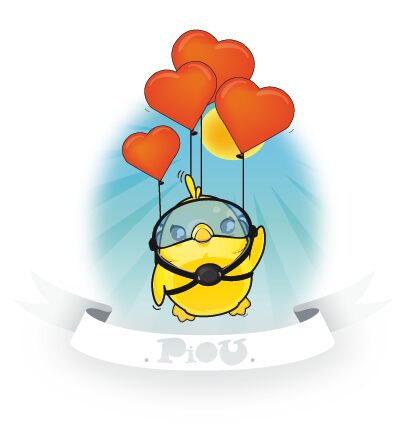
Piou Font by Thomas Boucherie of 1001Head.com is a free cartoon dingbat font filled with round, lively, mischievous characters. The drawings use crisp outlines, compact bodies, oversized heads, and small costume details.
Cartoon storytelling is its clearest territory, especially for children's publishing and comic projects that need a ready-made cast. Each symbol reads like a tiny mascot, making the collection useful for party invitations and playful merchandise. The mix of animals, costumes, and comic poses suits lighthearted adventure or holiday themes.